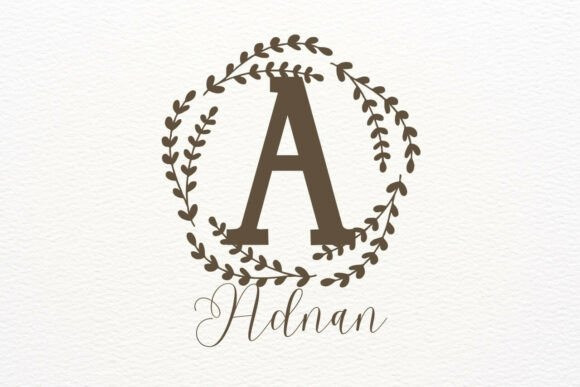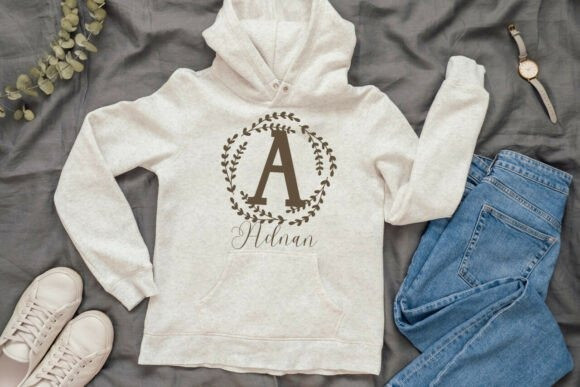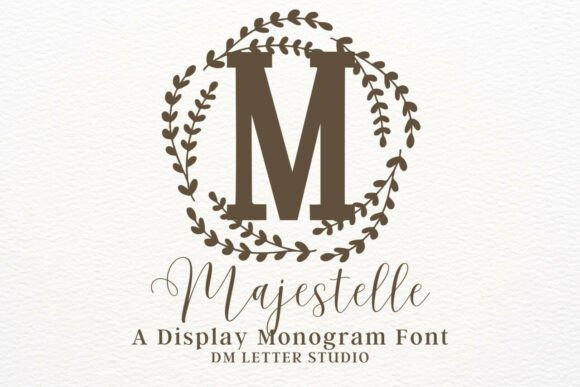
Majestelle Monogram Font
Majestelle Monogram Font is a rustic and elegant display monogram font that perfectly blends classic refinement with a warm, natural appeal.
This typeface features a stately, slightly serifed uppercase letter as its centerpiece, conveying a strong, traditional presence. The letter is beautifully encircled by a detailed, leafy laurel wreath of uniform thickness, which instantly suggests quality, heritage, and distinction.
The font’s balanced, earthy aesthetic makes it an ideal choice for farmhouse-style decor, rustic wedding signage, classic family crests or monograms, sophisticated apparel printing, and timeless housewarming gifts. It features distinctive uppercase letters for the monogram and a complementary, flowing signature script for adding names or dates below, providing a complete design solution. Majestelle is the quintessential font for projects that require a sense of tradition, nature, and enduring elegance.
Set single, double, or triple initials for logos, seals, and submarks. Then frame them with laurel rings, oval borders, or clean rules to echo the elegant structure. Since the proportions favor symmetry, compositions come together in minutes. As a result, your thumbnails stand out on crowded marketplaces and your listings stay consistent across product lines.
Keep initials large and let white space breathe. Pair the headline monogram with a quiet serif or humanist sans for supporting text. Meanwhile, add micro shadows, a thin inner stroke, or a delicate frame for depth.
Because the letterforms feel airy, metallic accents and textured papers raise perceived value. Finally, keep the copy brief so the monogram remains the hero.